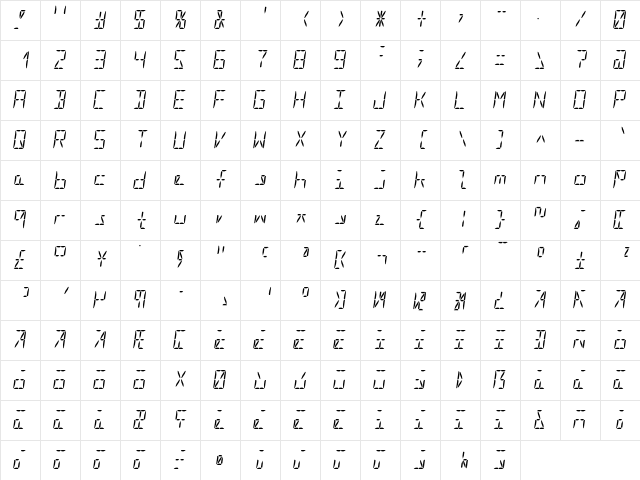
Segment16A Italic Font Preview
Segment16A Italic
Segment16A Italic Font Details
| Designer | Daniel Wikholm |
Design Context for Segment16A Typeface
Segment16A is a composed and adaptable typeface that performs quietly and consistently across a wide range of design contexts. Its italic angle brings a sense of urgency and motion to the letterforms.
Pro Tip: Try Segment16A for annotation and caption copy alongside an upright companion — the contrast in angle creates a dynamic but ordered typographic system.